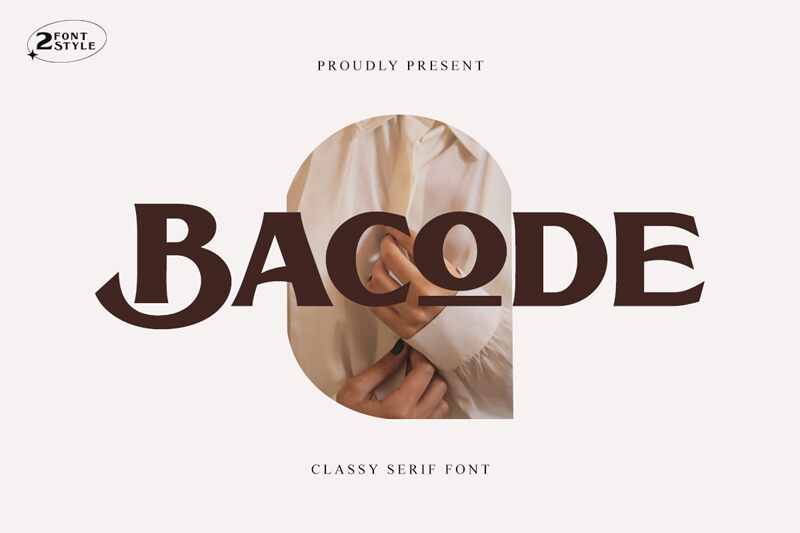
Bacode
Bacode, a creation by Kong Font, exudes elegance and sophistication with its classy serif style.
Its bold weight commands attention, making it perfect for luxury brand logos and high-end fashion magazines. The semi-expanded font width adds a touch of uniqueness to product packaging and signage. Bacode's timeless appeal also suits wedding invitations, prestigious award certificates, and refined restaurant menus.
Elevate your projects with this versatile typeface that effortlessly blends tradition with contemporary design.